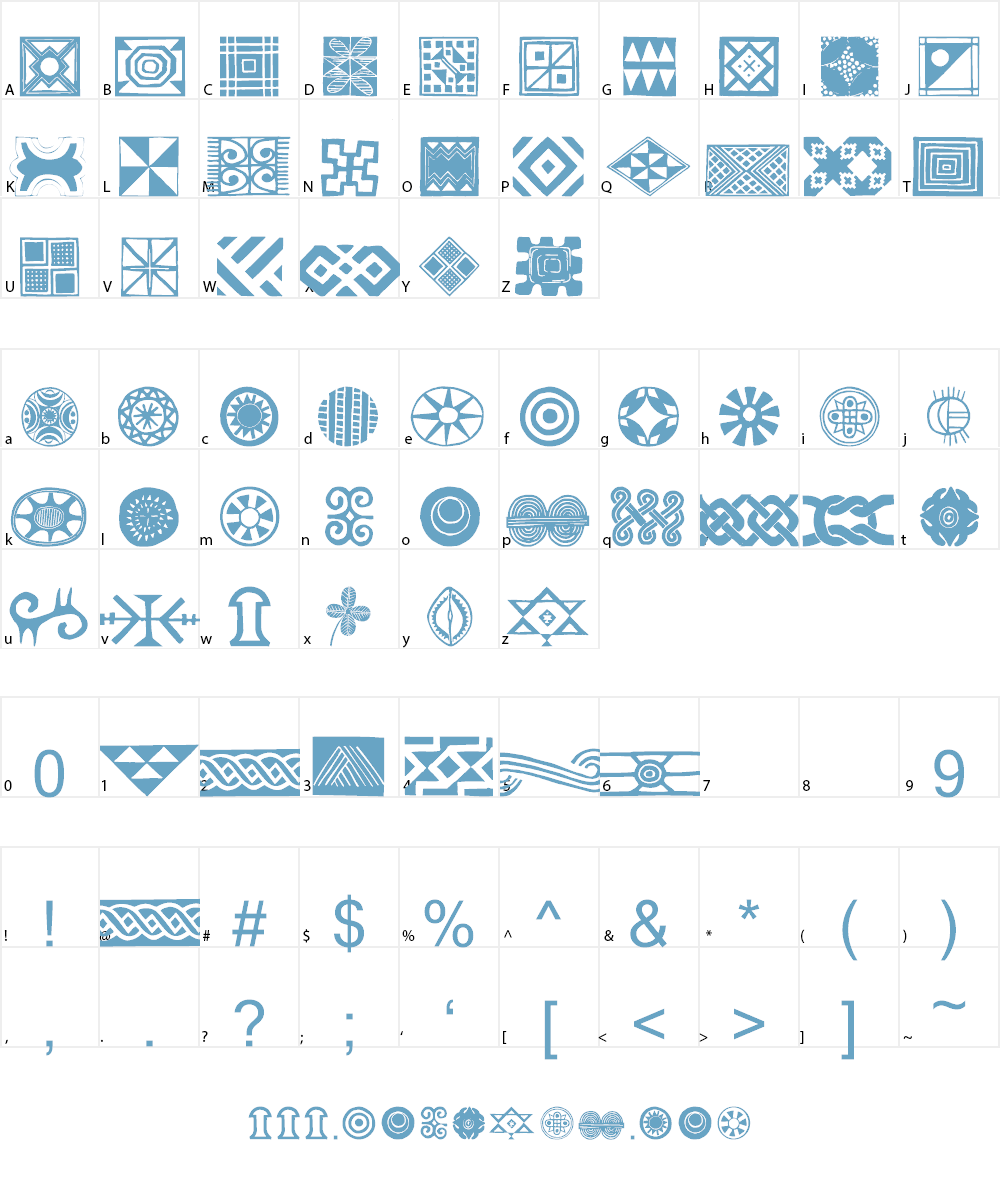
Thank you very much for trying African Ornaments One, my font of beautiful decorative designs derived from the art of the Ashanti, Masai, Zulu, Bushongo, and numerous other tribes.